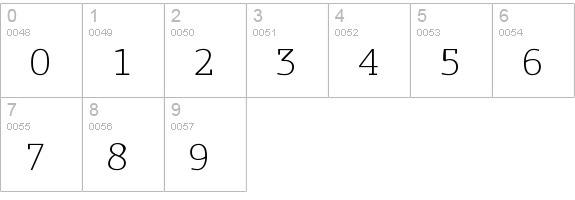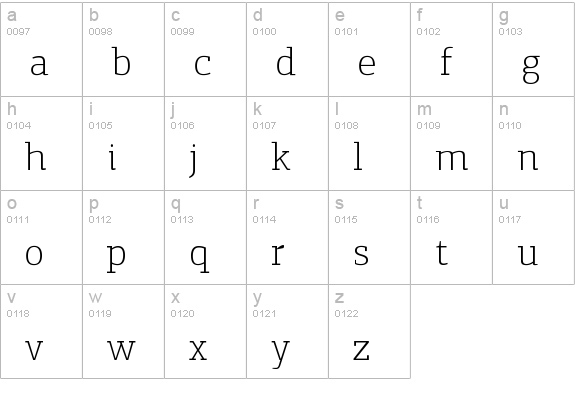
PFCentroSlabPro-Thin Font Details
PFCentroSlabPro-Thin is a delicate, low-contrast variant in the PFCentroSlabPro typeface family \xE2\x80\x94 well suited to fashion editorial, minimal branding, and high-contrast display.
PFCentroSlabPro-Thin is a sleek and modern typeface that exudes sophistication and elegance. Its thin strokes and clean lines make it perfect for adding a touch of refinement to any design project. This font is versatile and can be used for a variety of purposes, from branding to editorial design. The best part about PFCentroSlabPro-Thin is that it is available for free download at FontsMarket.com. This means you can easily access this high-quality font without any cost, making it a valuable addition to your font library. Don't miss out on the opportunity to elevate your designs with this exquisite typeface. Download PFCentroSlabPro-Thin today and take your projects to the next level!